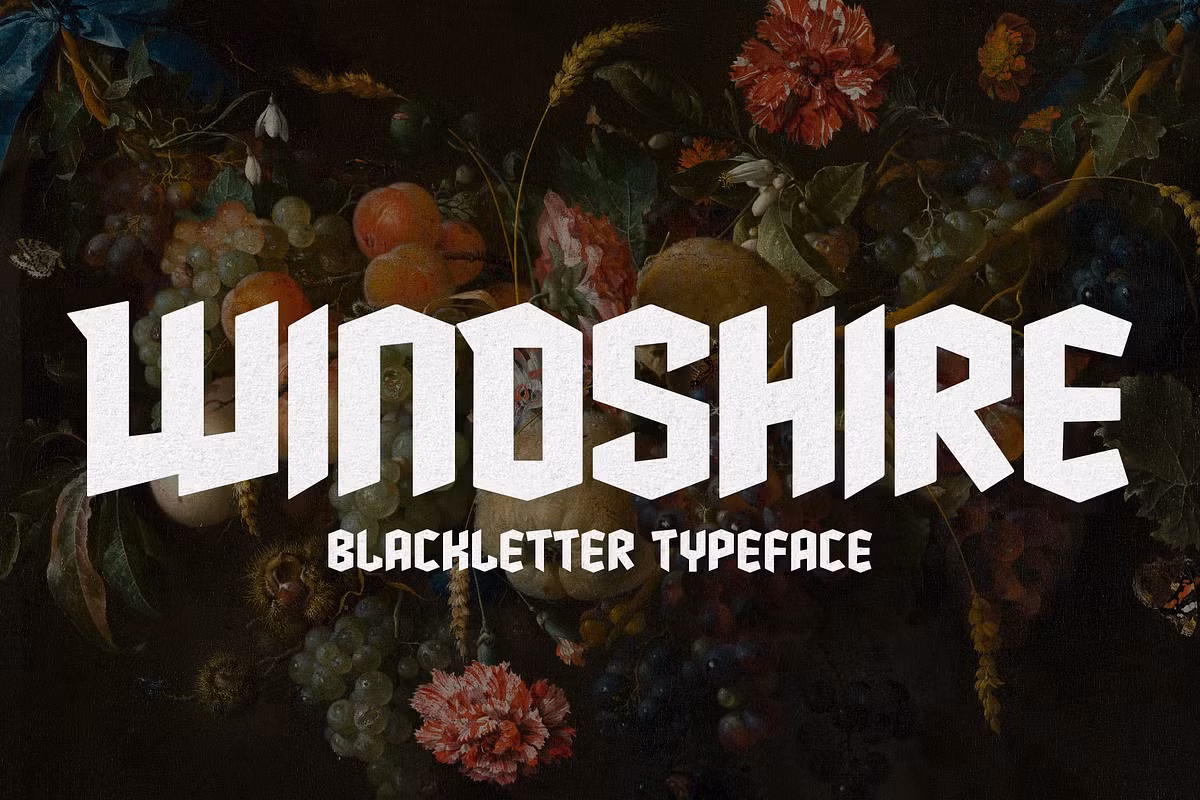
Windshire Font Free Download is a striking blackletter typeface that channels the bold and dramatic style of traditional calligraphy. With its sharp, angular strokes and intricate letterforms, Windshire is perfect for gothic designs, medieval-inspired branding, vintage logos, book covers, and event invitations that require a bold and historical aesthetic.
Inspired by the dark elegance of old English and Gothic script, Windshire Font Free Download brings a strong visual presence to any design project. Whether you’re creating a vintage-inspired brand identity, a dramatic headline, or a fantasy novel cover, this font adds a layer of sophistication and history.
Windshire pairs beautifully with modern sans-serifs or minimalist fonts to create a balanced and contemporary design. Its bold, legible characters make it a great choice for both large headlines and smaller text, while still maintaining its detailed and ornate character.